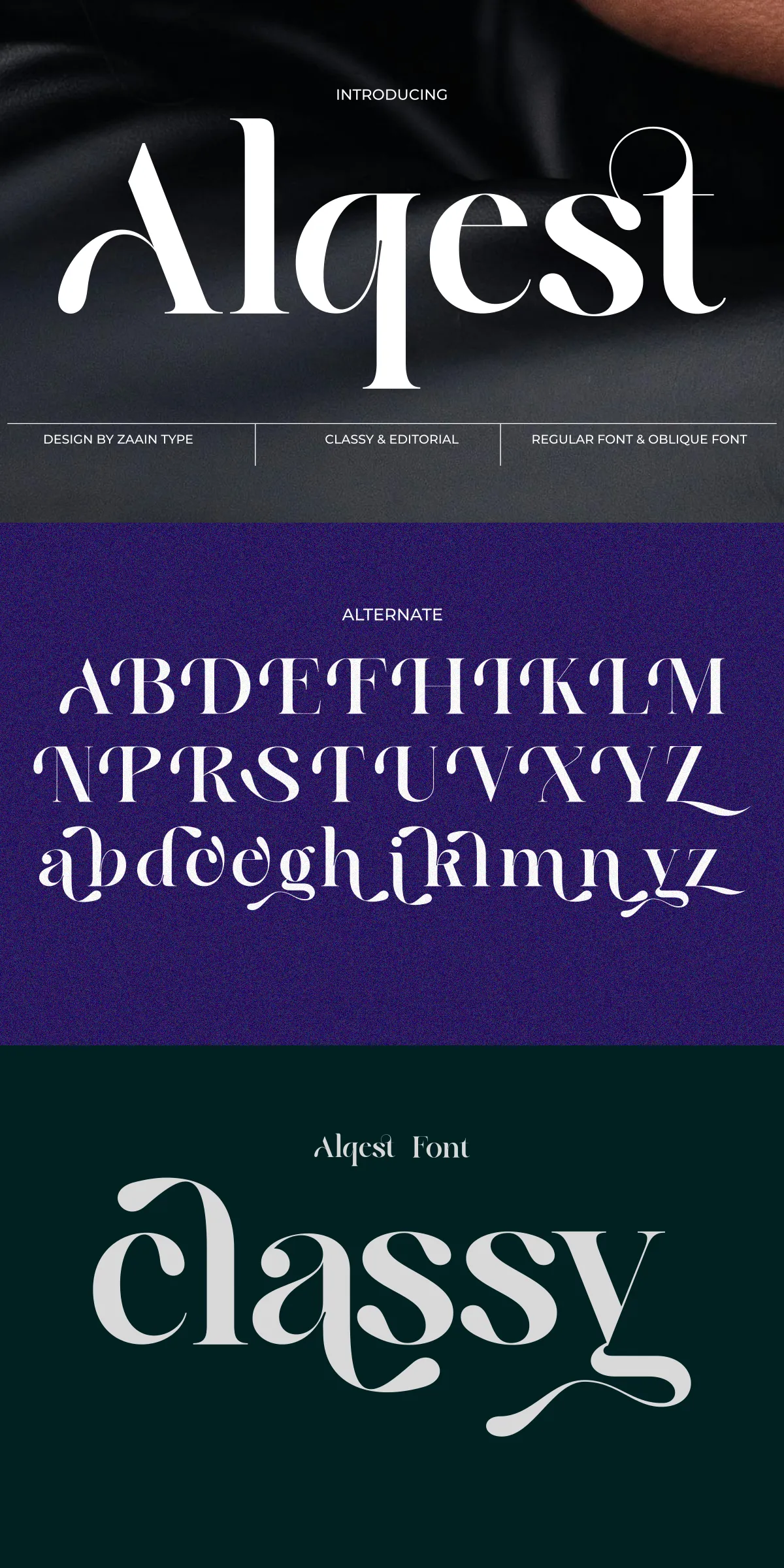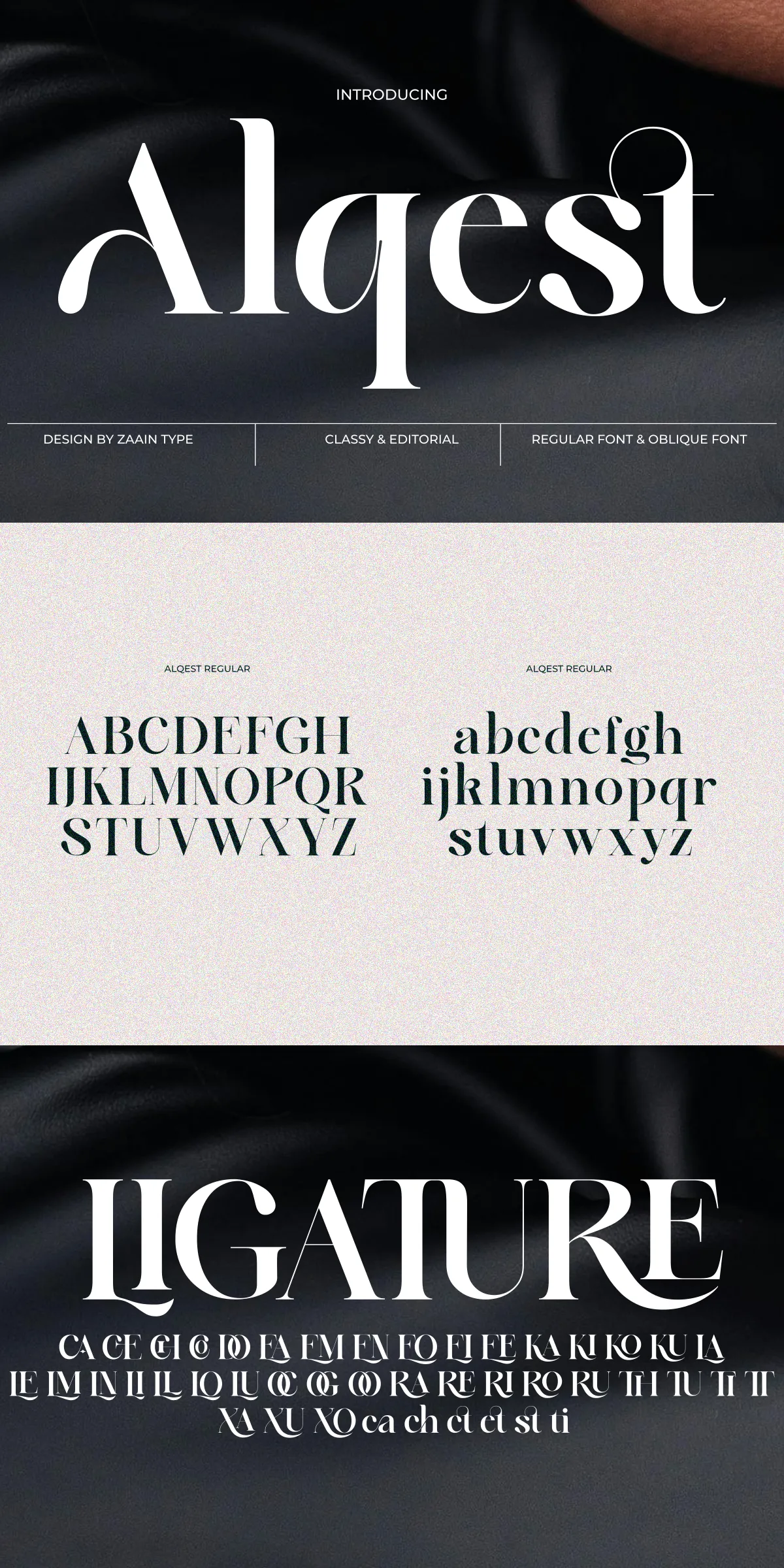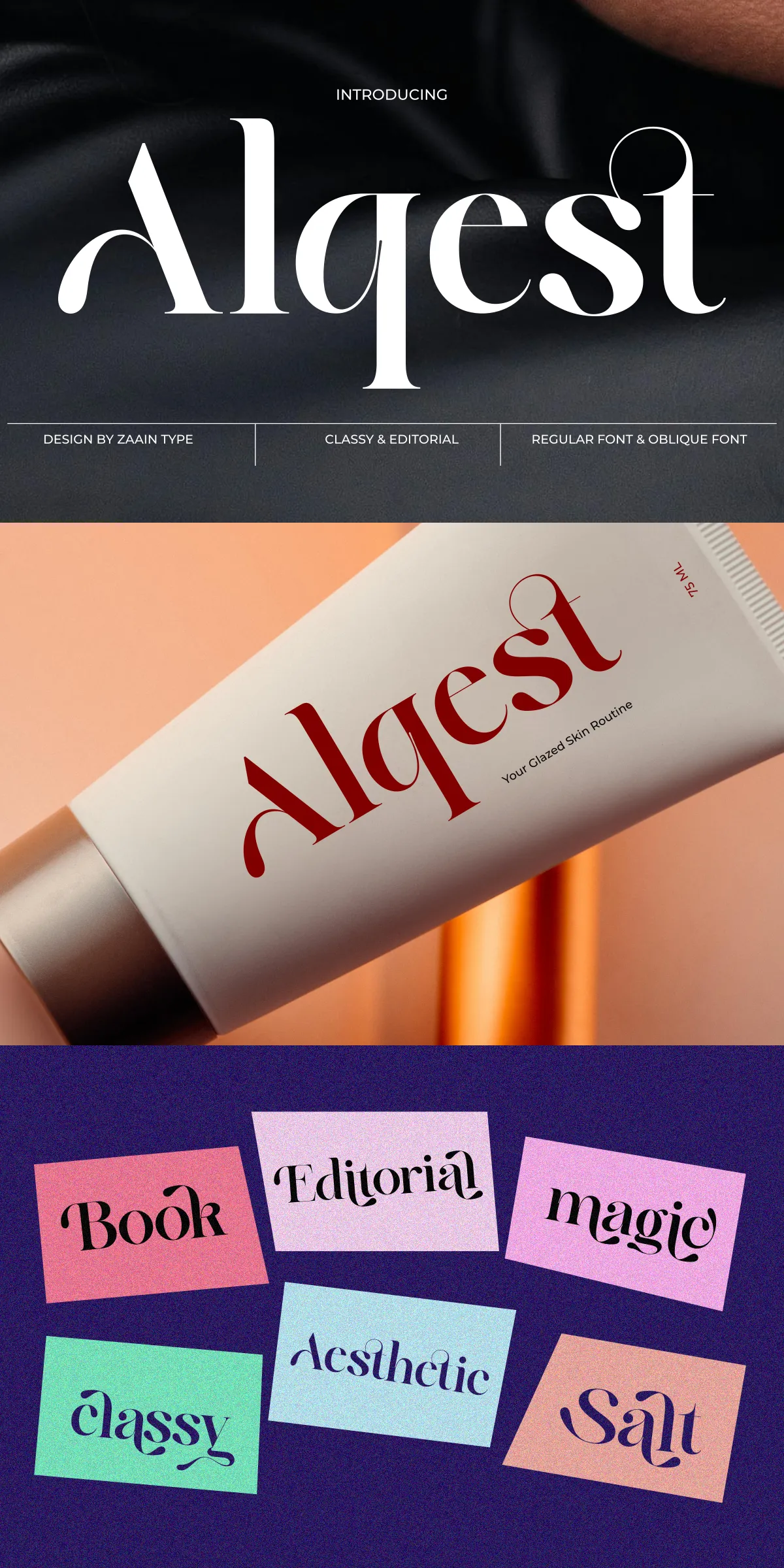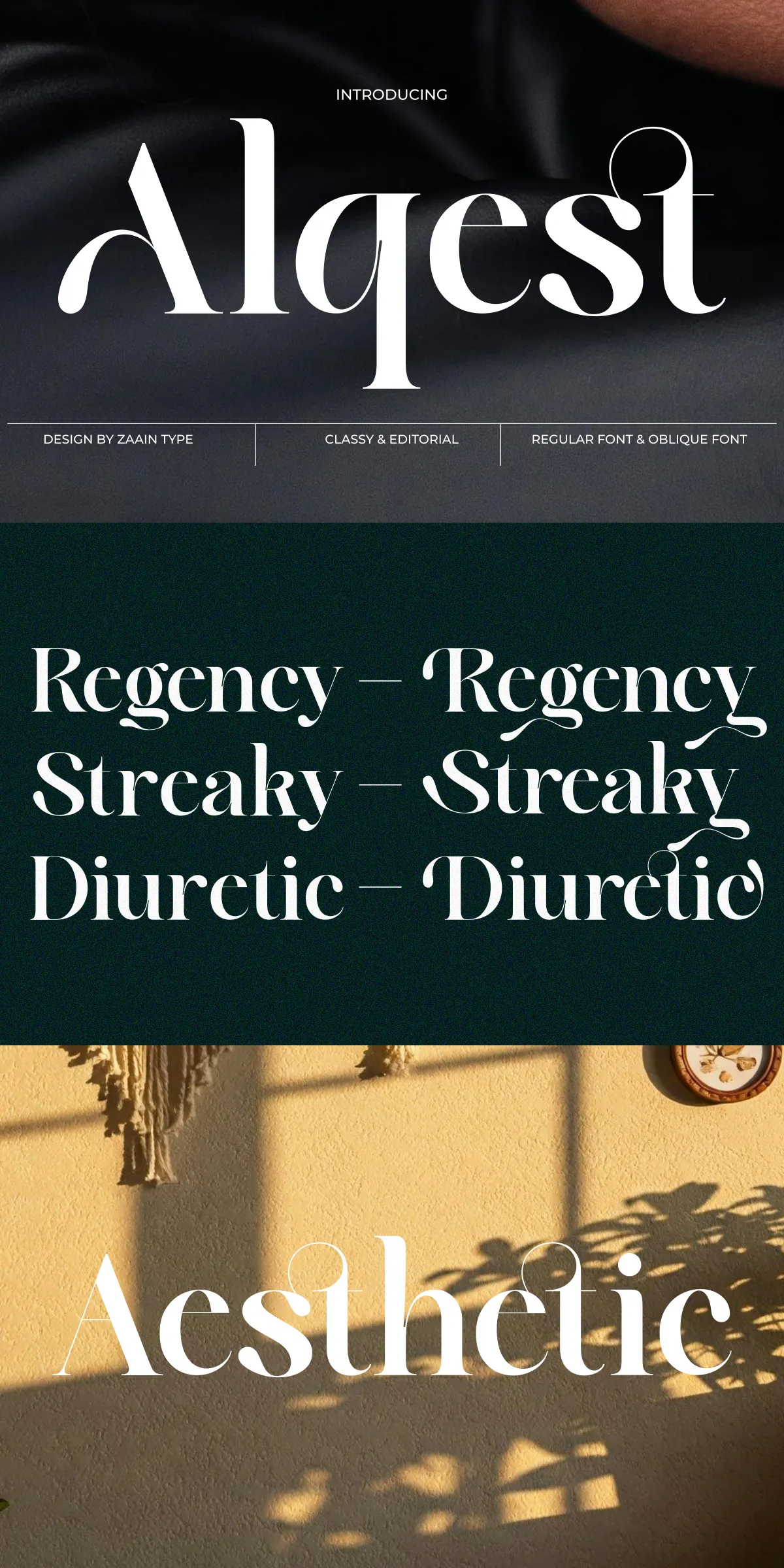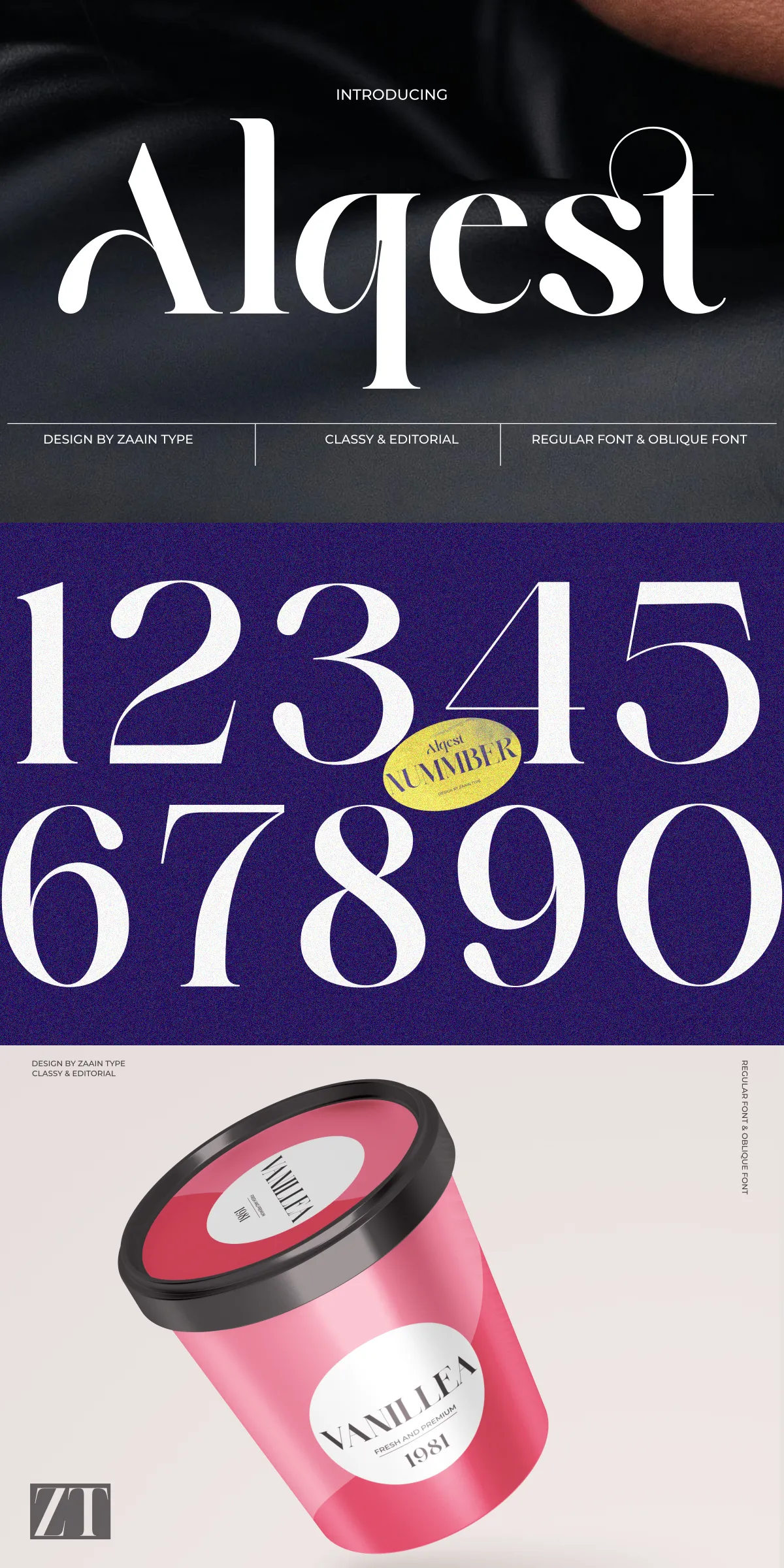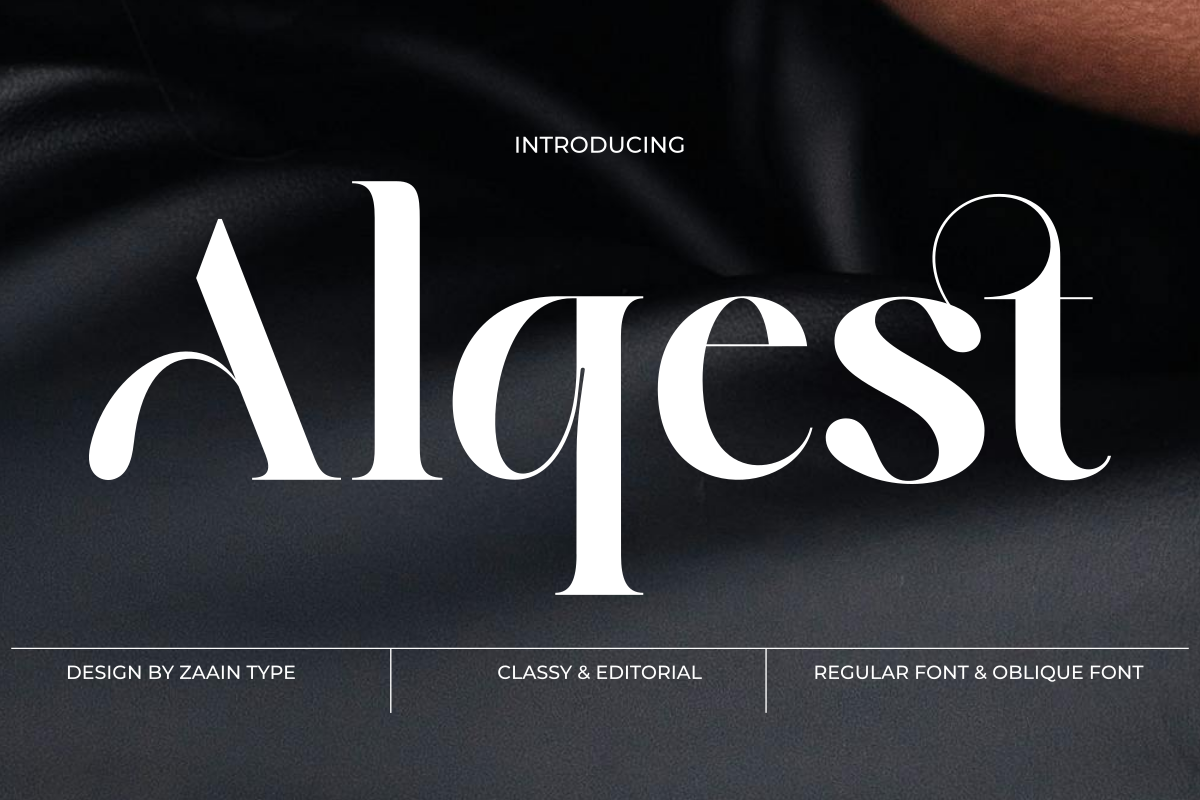
Alqest is a serif typeface that blends classic elegance with a subtle modern touch. Its characters are crafted with balanced proportions, smooth thick-to-thin contrast, and refined serif details—creating a sophisticated look without feeling excessive.
Perfect for editorial design, premium branding, fashion, and striking headlines, Alqest delivers a timeless aesthetic that remains versatile across various design styles